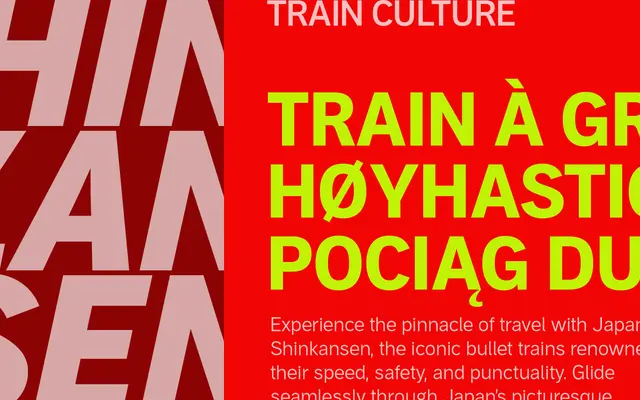
Aaux Pro
Positype · Neil Summerour · 2002
A comprehensively redrawn grotesque superfamily spanning 378 fonts, six scripts and 349 languages, originally released in 2002 and rebuilt from scratch for the Pro edition.
Originally launched in 2002, Aaux Pro was redesigned with every glyph redrawn from scratch across four width variants — Compressed, Condensed, standard and Wide — each with ten weights and matching italics. Script support extends to Arabic, Cyrillic, Greek, Korean and Thai, making it one of the more genuinely multilingual grotesque families available. OpenType features include small caps, old style figures, tabular figures, expanded f-ligatures and case-sensitive forms.
A contemporary grotesque sans-serif with warmth and precision, balancing assertiveness with friendliness across a large family spanning multiple widths and scripts.